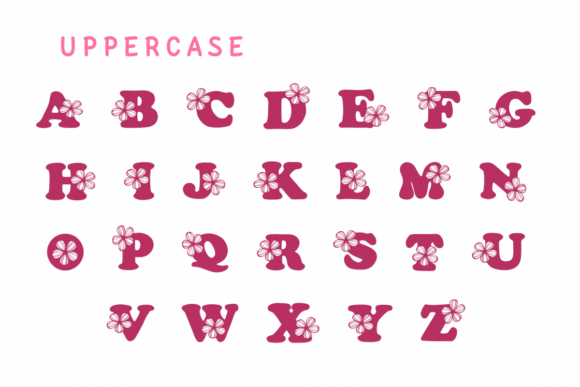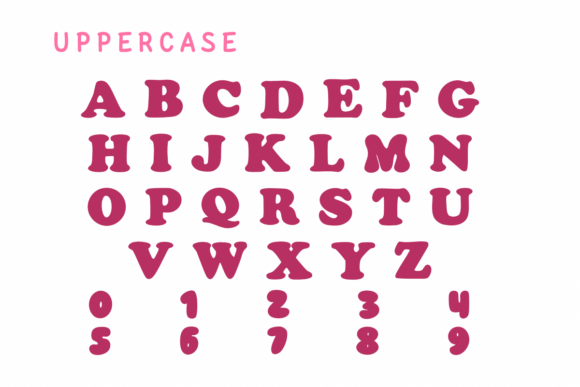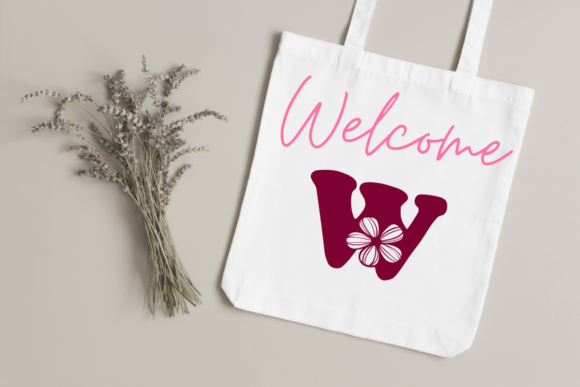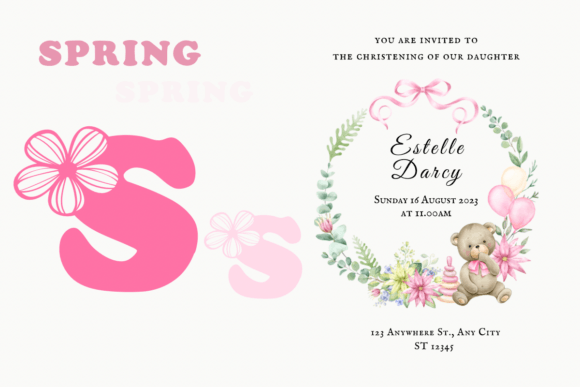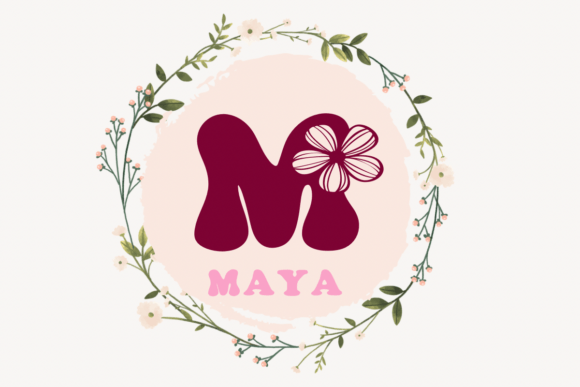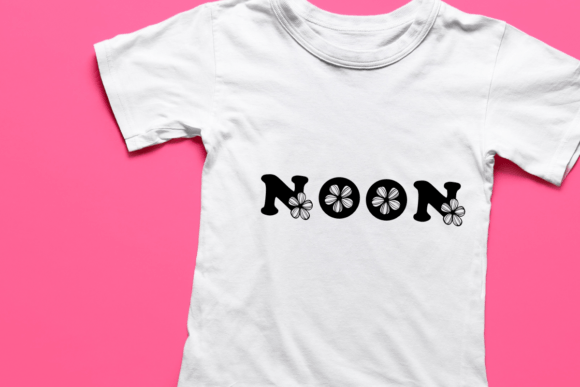
The Sweet Allure of Cute Flower Font
Have you ever been rummaging through your stationery drawer, only to stumble upon a beautiful floral pattern that instantly sparks a wave of creativity? For many of us, this moment is a gateway to a world of endless possibilities. It’s a reminder that sometimes, all it takes is a small, delightful detail to inspire a new project or idea.
Cute Flower Font is one such delightful detail, designed to bring a touch of whimsy and charm to your designs. Whether you’re jotting down notes, writing a diary entry, or crafting a heartfelt greeting card, this decorative font is sure to add a sweet and playful touch. Its versatility makes it an invaluable asset for designers looking to create eye-catching banners, social media posts, and more.
With Cute Flower Font, the possibilities are endless, and its value lies in its ability to elevate even the simplest designs into something truly special. Whether you’re a seasoned designer or a DIY enthusiast, this font is sure to become a favorite in your creative arsenal.
Cute Flower Font Key Features
- Unique Characteristics: Whimsical, hand-drawn design with a floral theme
Cute Flower Font Review
I recently had the chance to work with the Cute Flower Font, and I’m sharing my honest review with you. Overall, I was impressed with the font’s whimsical charm and the attention to detail that went into its design.
- The font’s delicate, hand-drawn feel adds a touch of personality to any design project.
- The variety of flower-inspired characters and symbols is perfect for creating unique and eye-catching graphics.
- The font’s legibility is excellent, making it suitable for both display and body text.
- The font’s complexity might make it difficult to use in certain situations, such as in small text sizes or for large blocks of text.
- The font’s unique design might not be suitable for all projects, such as corporate or professional branding.
- The font is not as versatile as some other fonts in terms of language support.
Overall, I think the Cute Flower Font is a great choice for designers looking to add a touch of whimsy and personality to their projects. While it may have some limitations, its unique charm and versatility make it a valuable addition to any design toolkit.
To get the most out of the Cute Flower Font, try pairing it with other whimsical fonts or using it in combination with bold, bright colors. You can also experiment with different font sizes and styles to create a unique look.
The Cute Flower Font is perfect for:
- Children’s party decorations and materials
- Gift tags and cards
Alternatives to Cute Flower Font for Designers
Great Vibes is a beautiful, handwritten script font that is perfect for adding a touch of elegance and sophistication to your designs. It’s ideal for use in branding, advertising, and editorial content. Great Vibes is more elegant and refined compared to Cute Flower Font, which has a more playful and whimsical feel.
Alex Brush is a highly decorative script font that is great for use in invitations, wedding designs, and other special occasions. It’s also perfect for creating a sense of luxury and sophistication in your designs. Compared to Cute Flower Font, Alex Brush is more polished and refined, with a more precise and delicate touch.
Carolyna Pro is a elegant, modern script font that is perfect for use in branding, advertising, and editorial content. It’s also great for creating a sense of sophistication and elegance in your designs. Compared to Cute Flower Font, Carolyna Pro is more modern and sleek, with a more precise and refined touch.